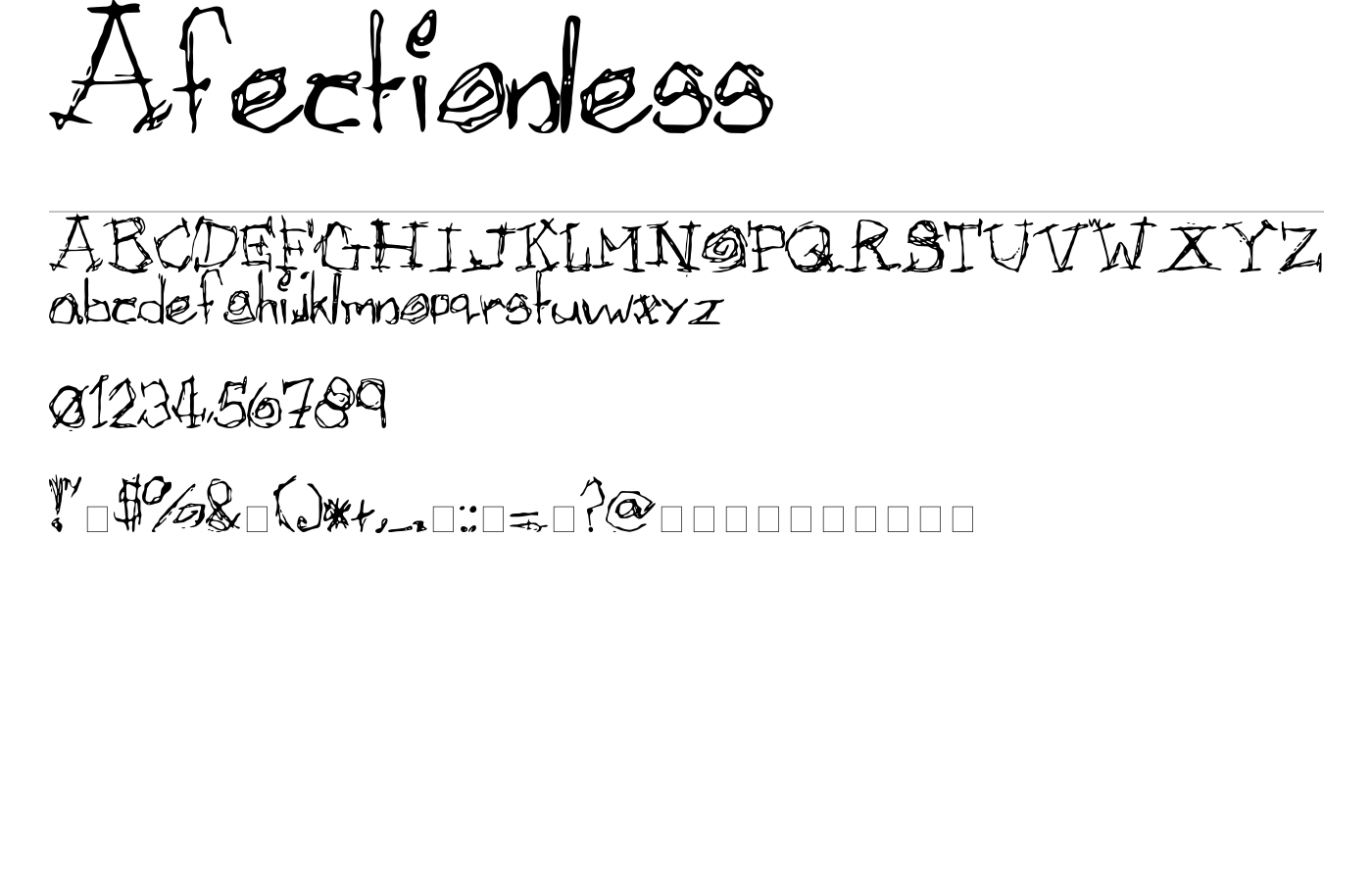
Afectionless is a quirky, hand-drawn serif font featuring irregular, jagged strokes and unique, distressed letterforms that give it a raw, organic feel. Its narrow width and uneven texture create a playful yet slightly eerie mood, making it perfect for creative projects, alternative branding, or expressive headlines that need a distinctive, handcrafted touch.
Afectionless Font